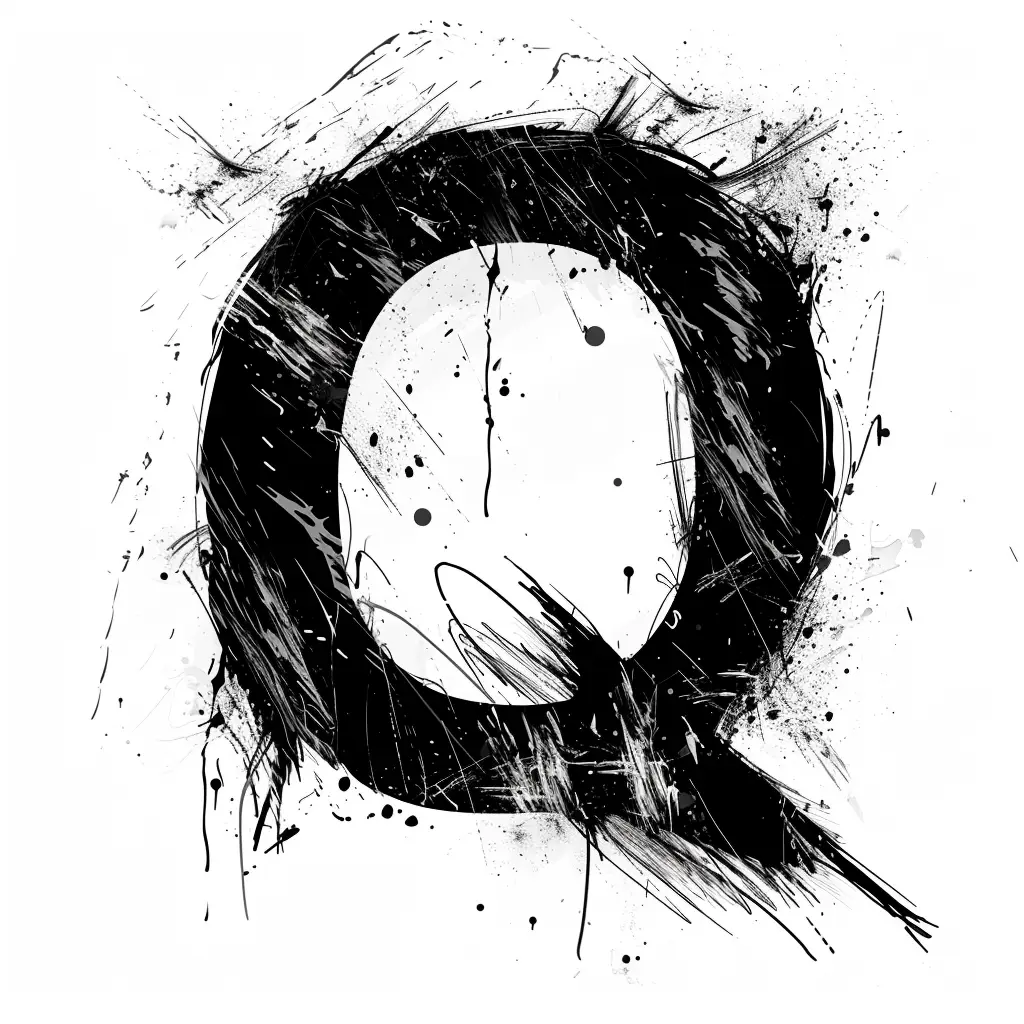
This image features a stylized, artistic representation of the letter "Q" rendered in bold black and white. The design employs a rough, expressive brushstroke style with splatters, drips, and textured lines, creating a dynamic, abstract aesthetic. The contrast between the solid black outer shape and the lighter, speckled inner area emphasizes the letter’s form, while the chaotic, painterly details add a sense of movement and energy.